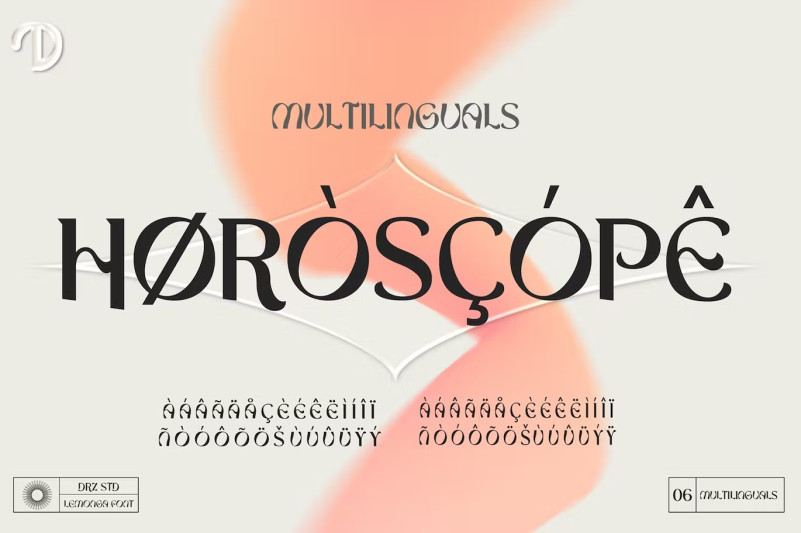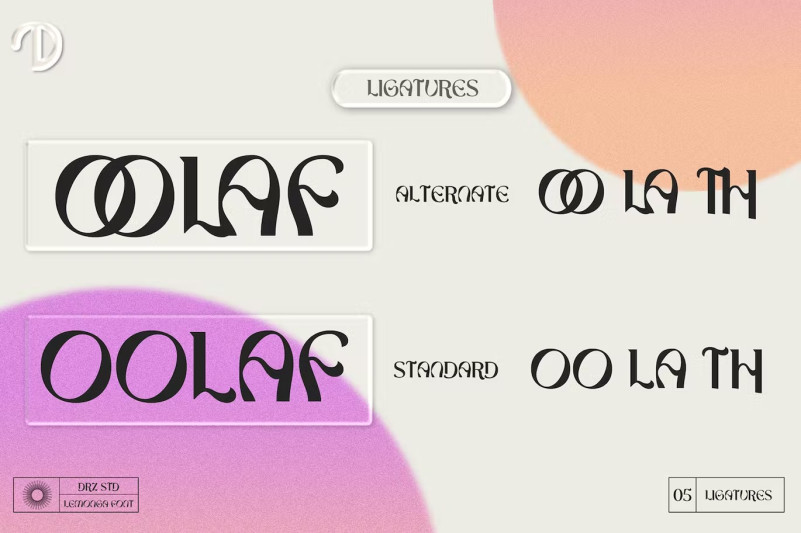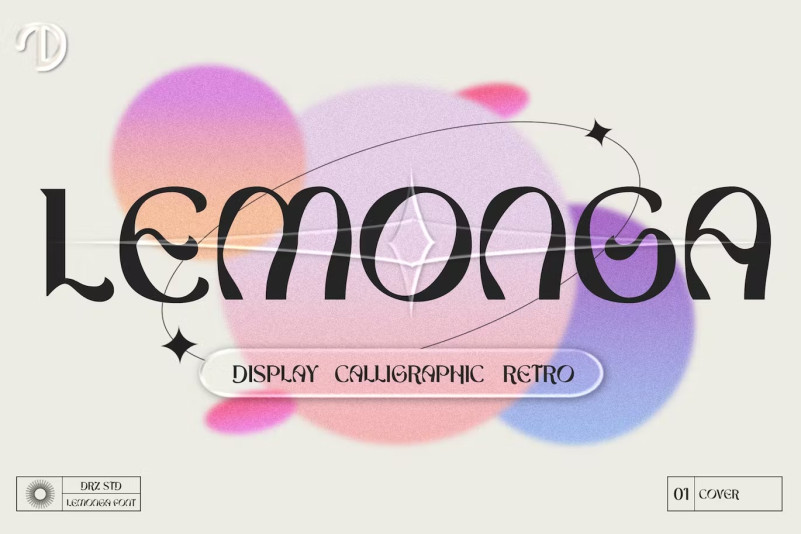
Lemonga – retro calligraphic font
Lemonga is a retro calligraphic font from studio Drizy. Offering all the basic styles you’ll need, especially for classic Theme projects.